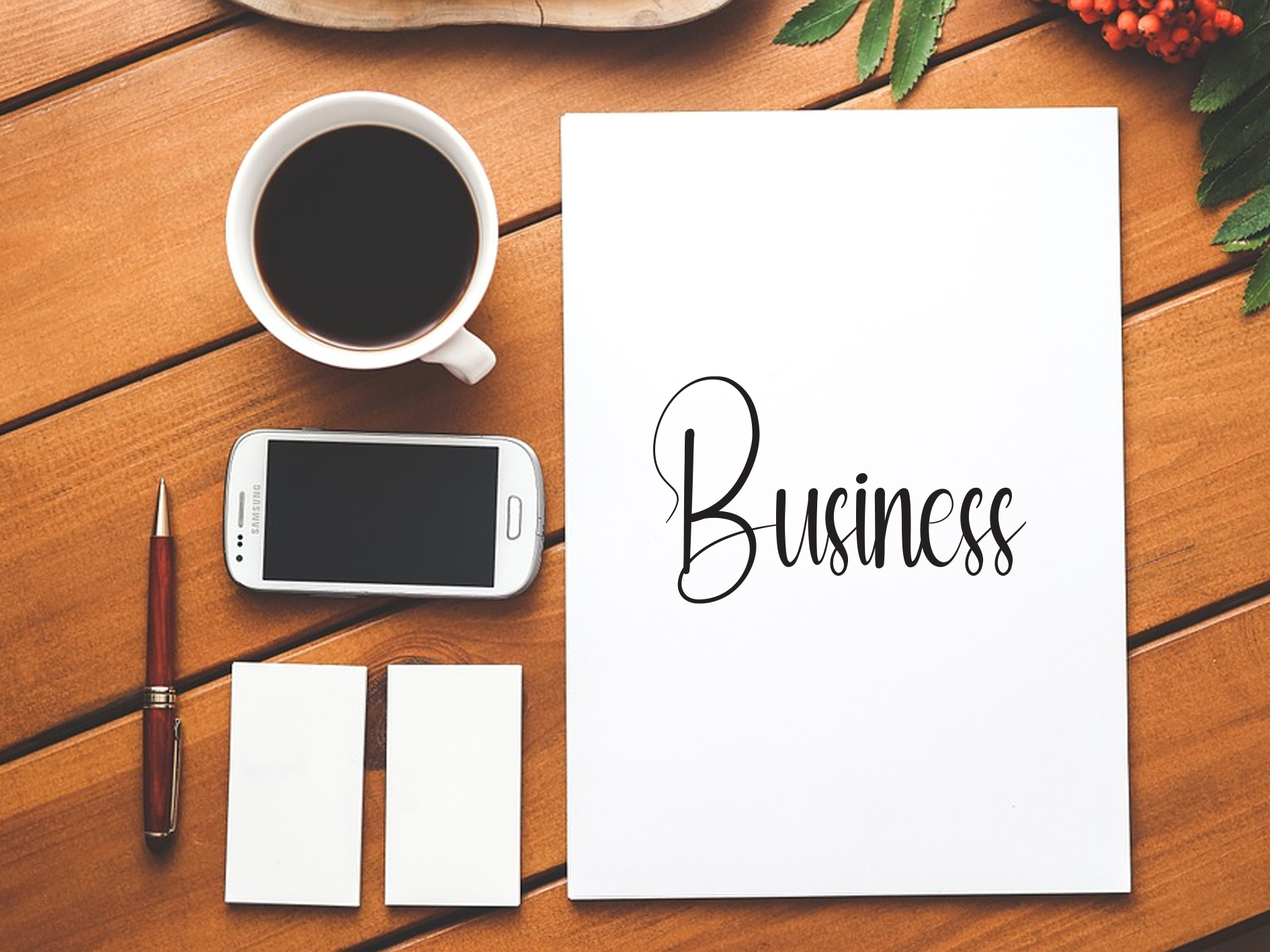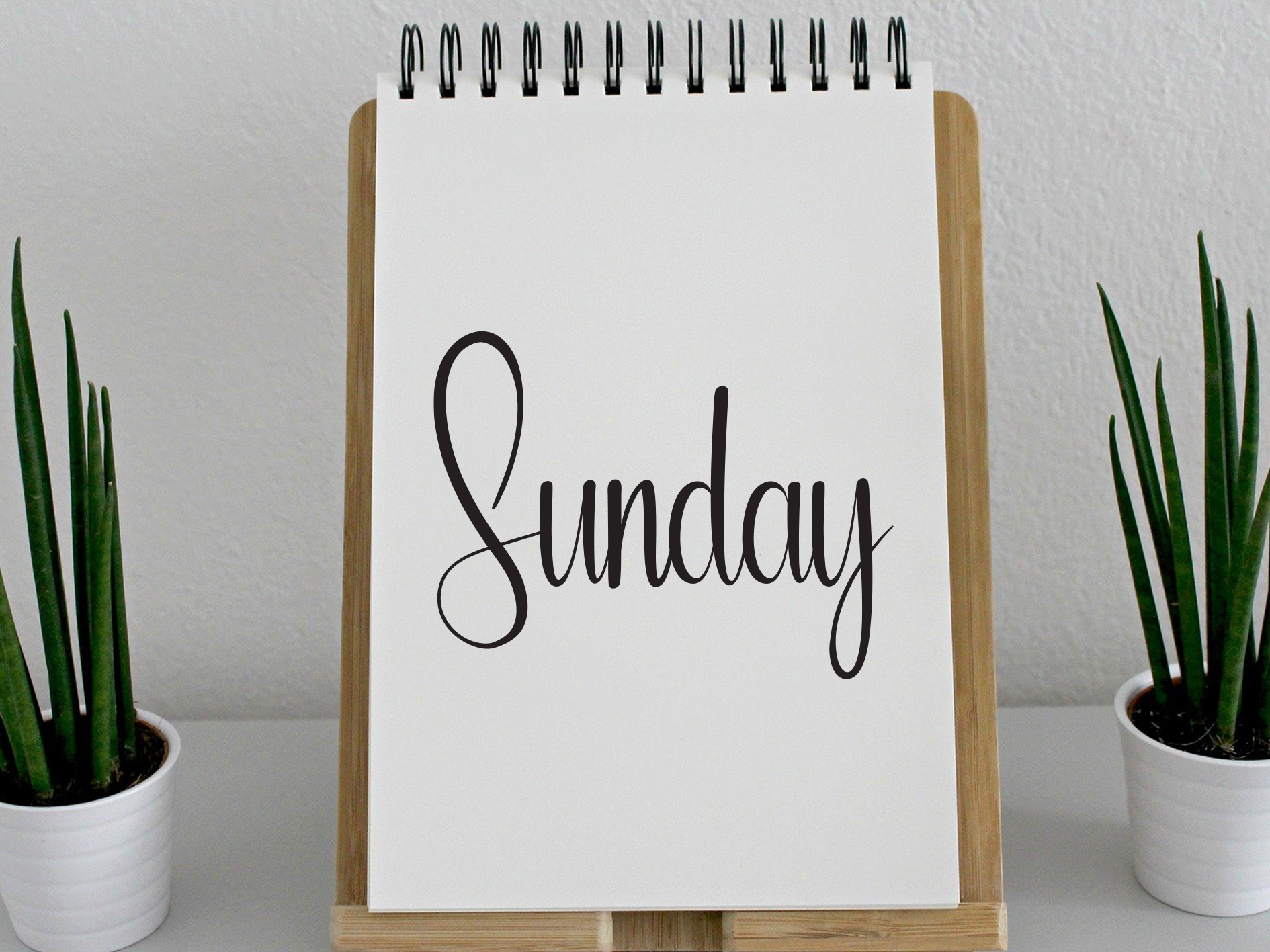
Heart Script Font
This is a sweet handwritten font that is made with great care in order to exceed expectations. This font can be used for writing various kinds of products according to their respective needs.